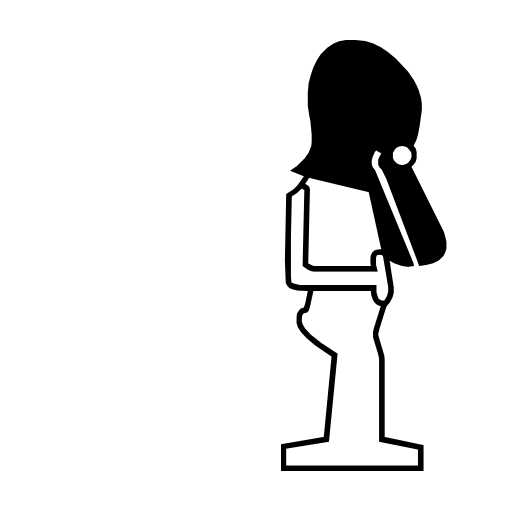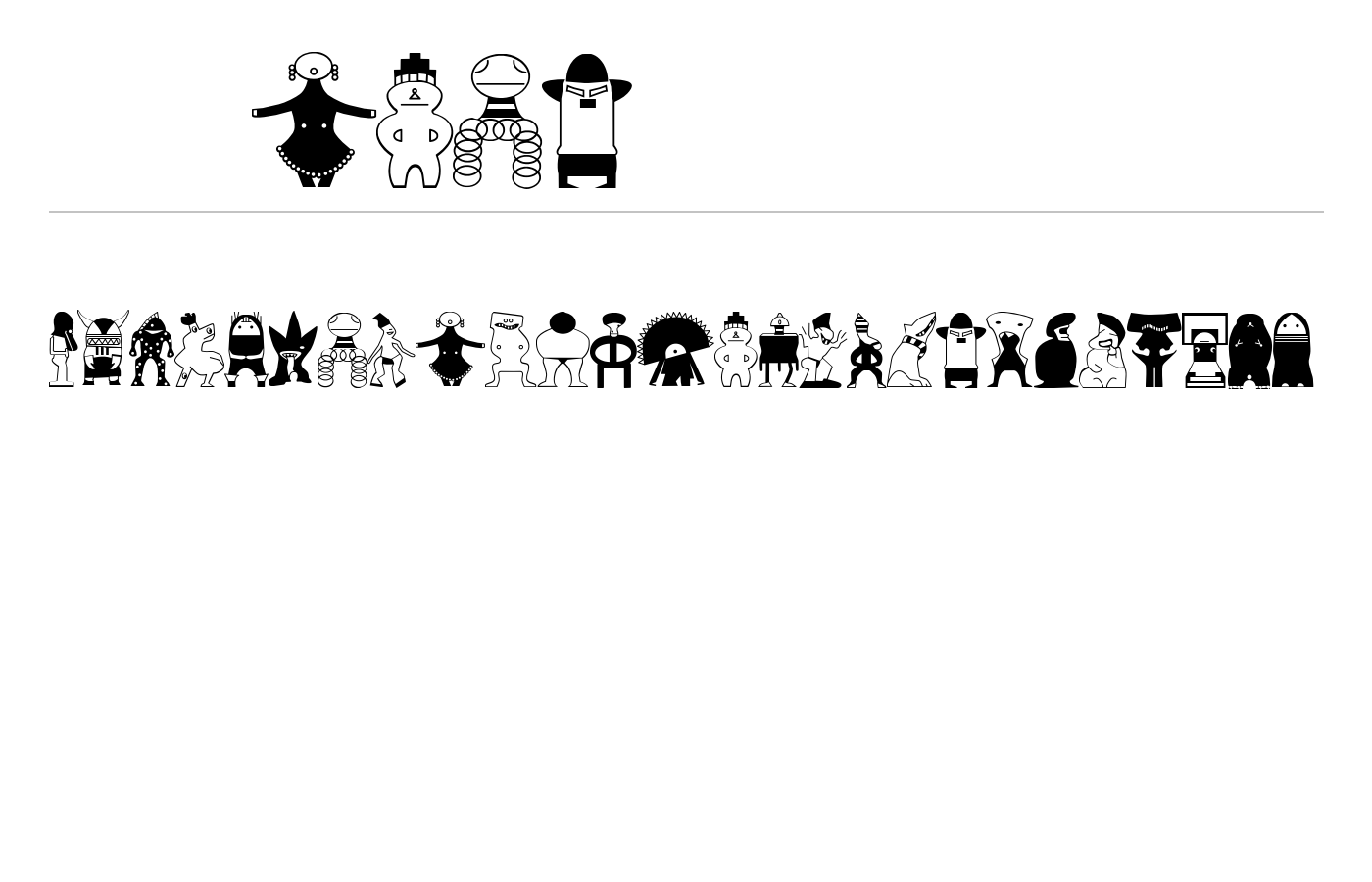
B Kings Font is a highly decorative and playful display typeface featuring a variety of quirky, character-like glyphs rather than traditional letters. Its bold, graphic silhouettes give it a distinctive, whimsical personality suitable for creative projects, making it ideal for eye-catching logos, posters, or artwork that aim to convey fun and uniqueness. This font is best used in large sizes where its charming and imaginative shapes can fully stand out.
B Kings Font
About B Kings Font
| Font family | B Kings Font |
| Designer | Andrea Bartsch |